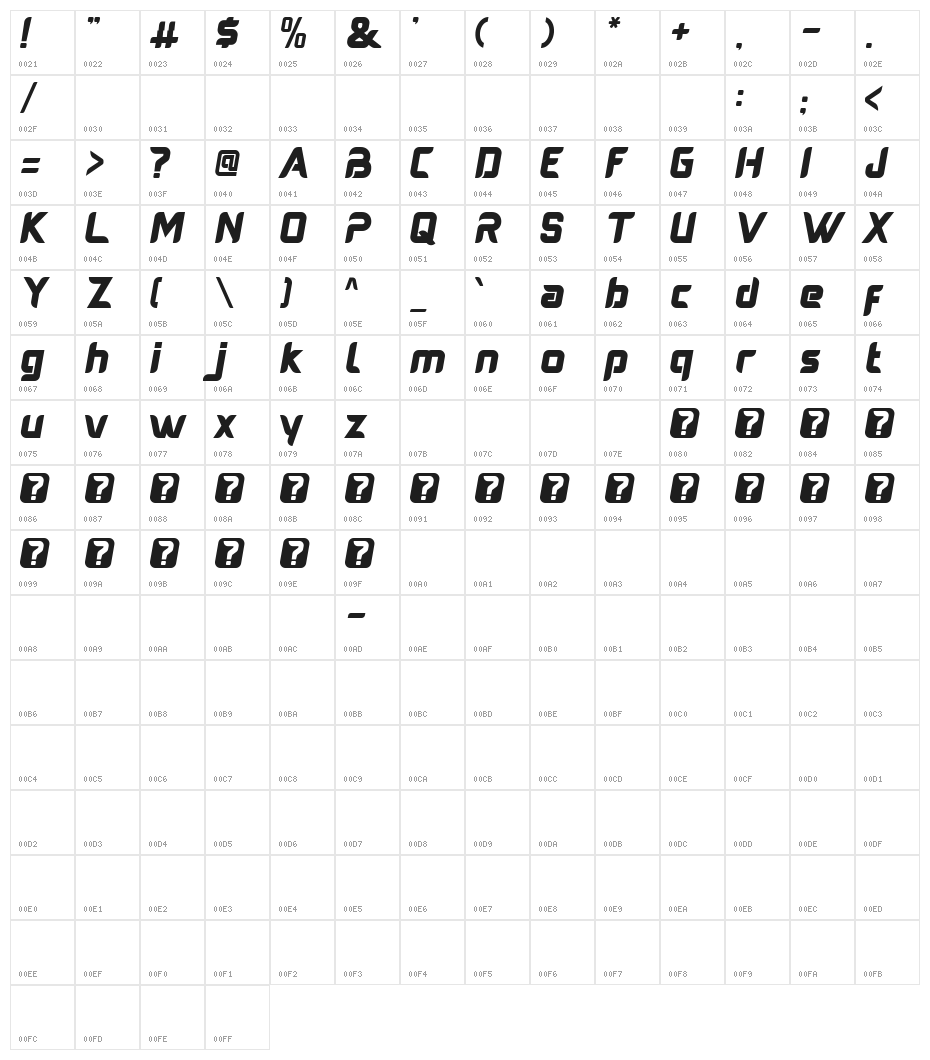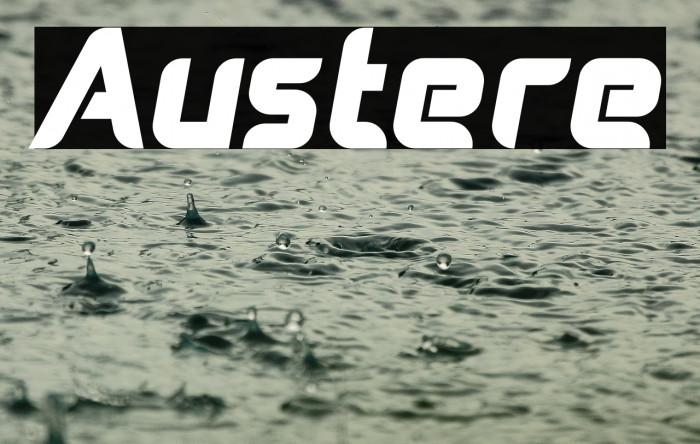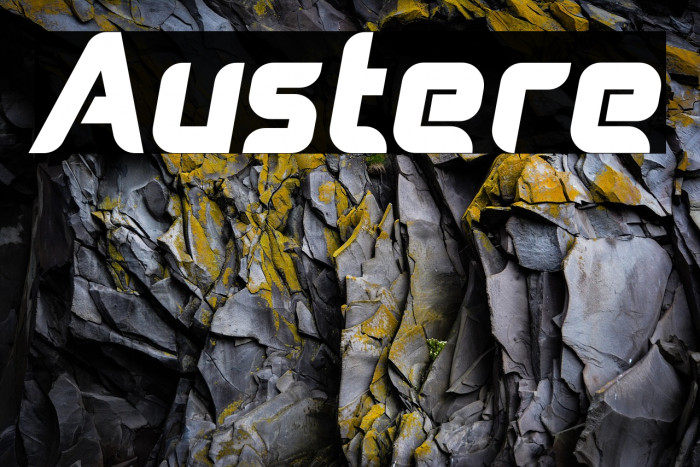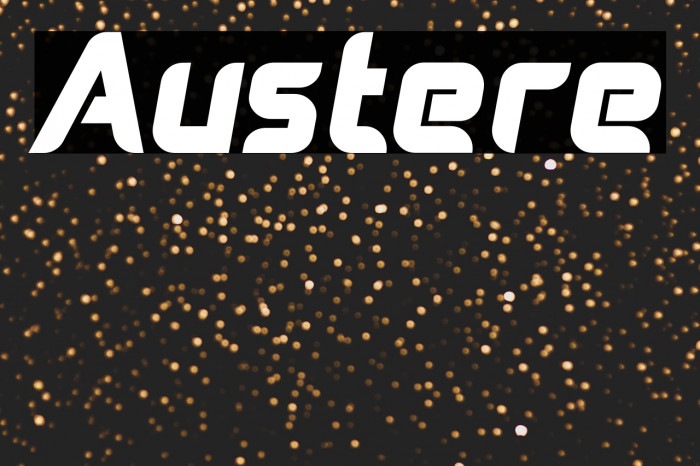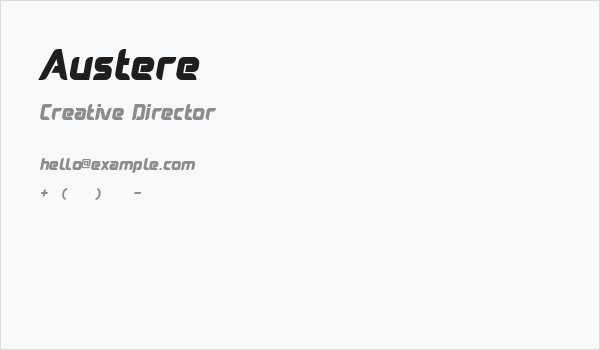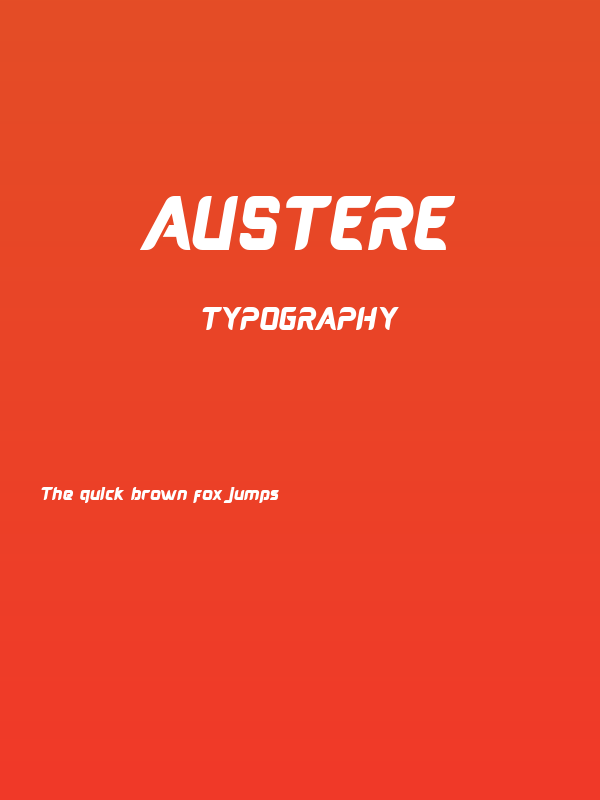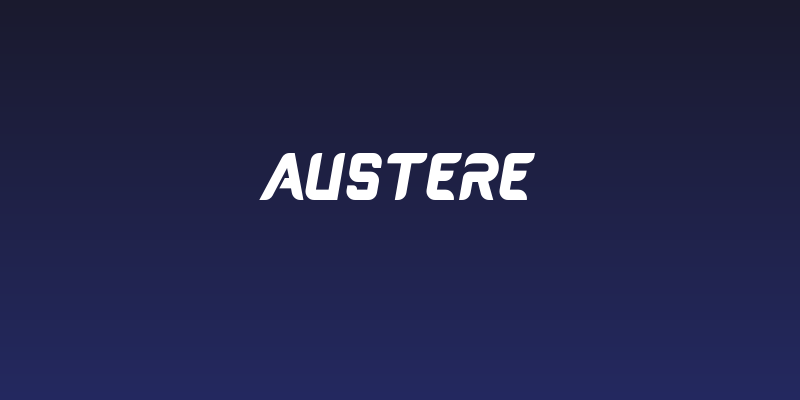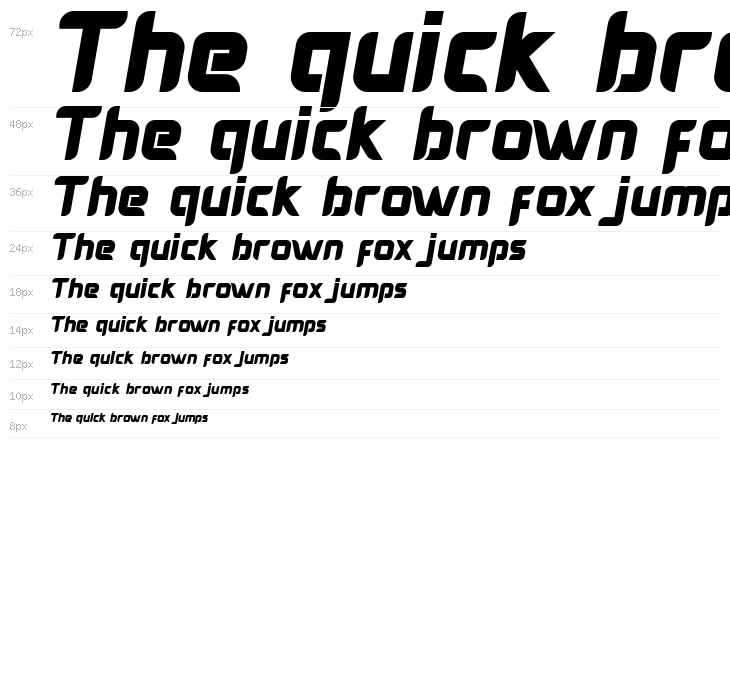
Austere Font
Austere Description
This font features a bold and dynamic style with a futuristic and sporty appearance. The characters are slightly italicized, giving a sense of motion and speed. The strokes are thick and consistent, providing a strong visual impact. The uppercase letters are angular and sharp, while the lowercase letters maintain a similar angularity with a slightly softer touch. The numbers and special characters follow the same bold and dynamic design, ensuring uniformity across all glyphs. This font is ideal for projects that require a modern and energetic feel.